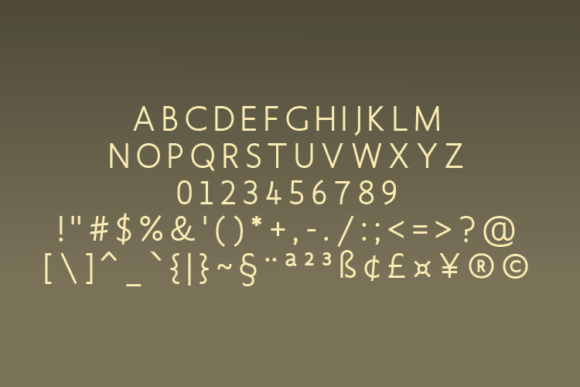
Introducing Blankco Medium Font: A Fresh Take on Geometric Sans-Serif Typography
In the world of typography, fonts play a crucial role in conveying messages, setting tones, and creating visual identities. For designers and crafters, finding the perfect font can be a daunting task, especially when looking for something that combines style, versatility, and uniqueness. This is where Blankco Medium Font comes into play – a modern, geometric sans-serif font that draws inspiration from iconic typefaces like Futura and Avant Garde.
Design Characteristics of Blankco Medium Font
Blankco Medium Font boasts a distinctive design that sets it apart from other fonts in its category. Its key characteristics include:
- Big x-height value: The font features a large x-height, making it highly legible and perfect for body text, headlines, and titles.
- Geometrical letterforms: Blankco’s letters are crafted with geometric precision, giving the font a clean and modern look.
- Sharp edges: The font’s sharp edges add a touch of sophistication and elegance, making it suitable for a wide range of design applications.
- Small stroke contrast: With a minimal stroke contrast, Blankco achieves a neo-grotesk aesthetic reminiscent of 20th-century typography.
Versatility of Blankco Medium Font
One of the standout features of Blankco Medium Font is its versatility. This font can be used across various mediums and design projects, including:
- Magazines: Use Blankco for article titles, headings, and body text to create a cohesive and stylish look.
- Posters: Make a statement with bold headlines and eye-catching titles that showcase the font’s geometric charm.
- Branding: Establish a strong brand identity with Blankco’s unique and memorable typography.
- Websites: Enhance user experience with a font that is both legible and visually appealing on digital screens.
Inspiration from Iconic Typefaces
Blankco Medium Font draws inspiration from some of the most iconic typefaces in history, including Futura and Avant Garde. These fonts have stood the test of time, and Blankco brings their geometric and modernist principles into the 21st century.
Futura: Designed by Paul Renner in 1927, Futura is a geometric sans-serif font known for its clean lines and precise letterforms. Blankco captures the essence of Futura’s futuristic feel while adding its own twist.
Avant Garde: Created by Herb Lubalin in 1970, Avant Garde is a geometric sans-serif font characterized by its bold and avant-garde style. Blankco borrows from Avant Garde’s geometric precision and sharp edges, infusing it with a modern sensibility.
Why Choose Blankco Medium Font?
With so many fonts available, why should designers and crafters choose Blankco Medium Font? Here are a few compelling reasons:
- Unique Style: Blankco offers a distinctive look that can help your designs stand out from the crowd.
- High Legibility: The font’s large x-height and clear letterforms ensure that your text is easy to read, making it perfect for both print and digital media.
- Versatility: Whether you’re working on a magazine, poster, website, or branding project, Blankco adapts seamlessly to different contexts.
Blankco Medium Font is a fresh and exciting addition to the world of typography. Its geometric design, inspired by iconic typefaces like Futura and Avant Garde, brings a modern twist to traditional sans-serif fonts. With its versatility, legibility, and unique style, Blankco is an excellent choice for designers and crafters looking to elevate their projects. Whether you’re creating a magazine, poster, website, or brand identity, Blankco Medium Font is sure to make a lasting impression.